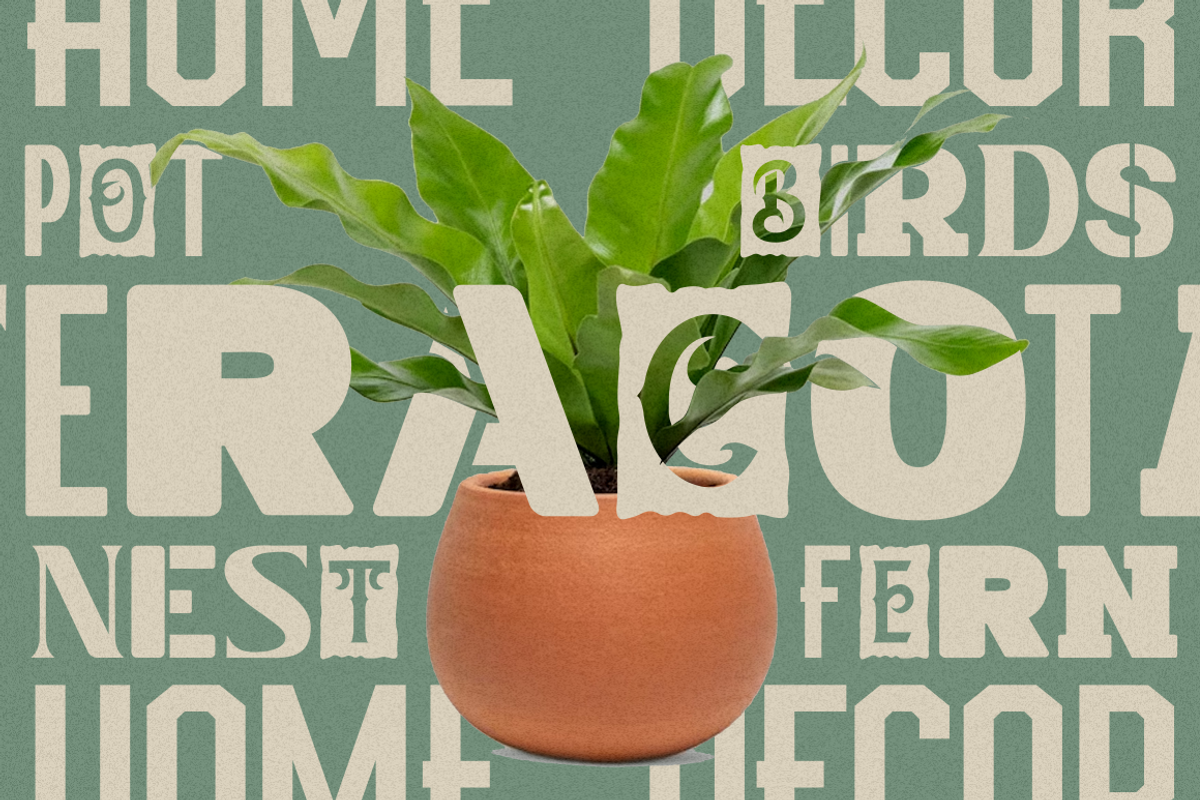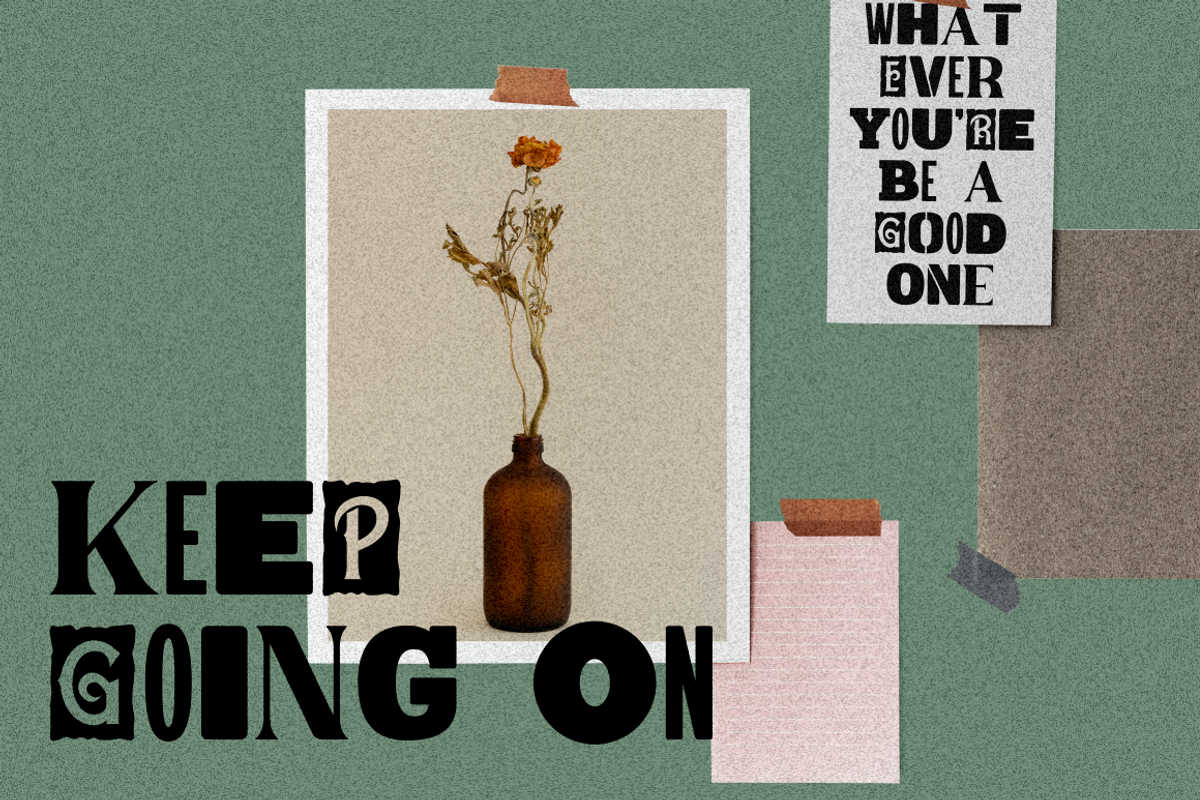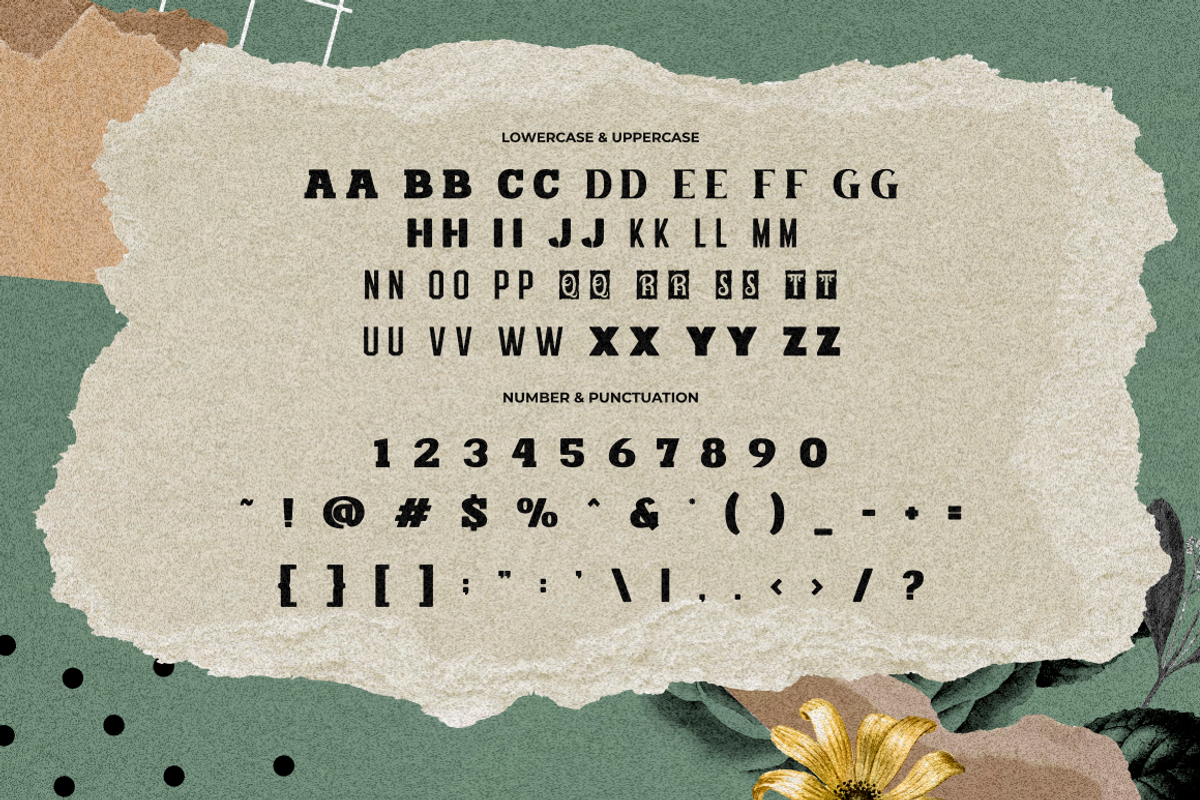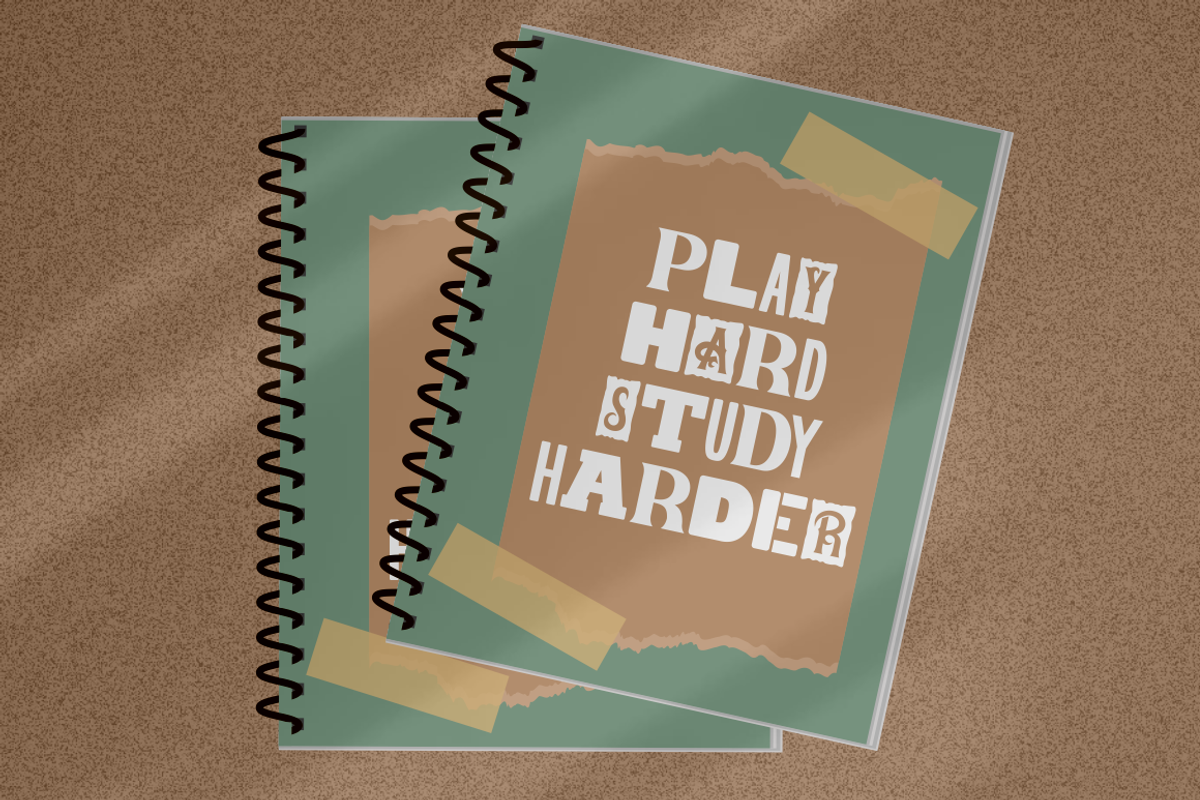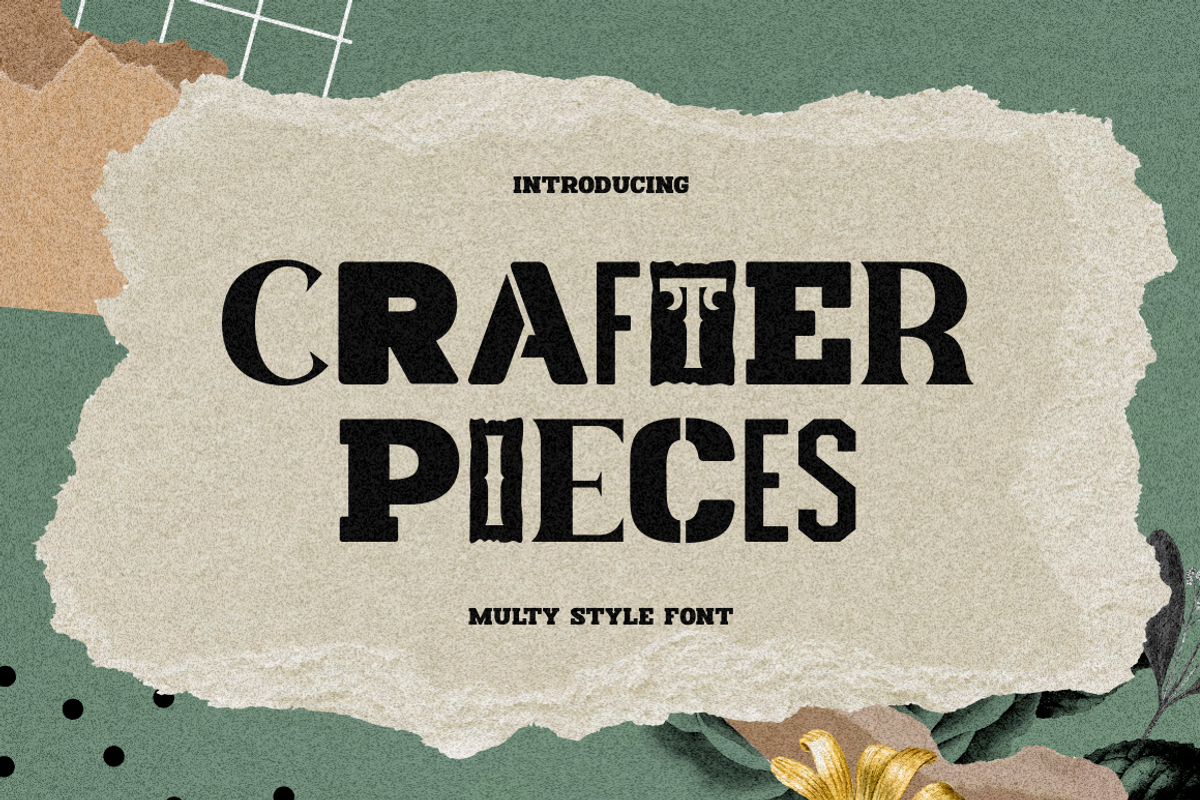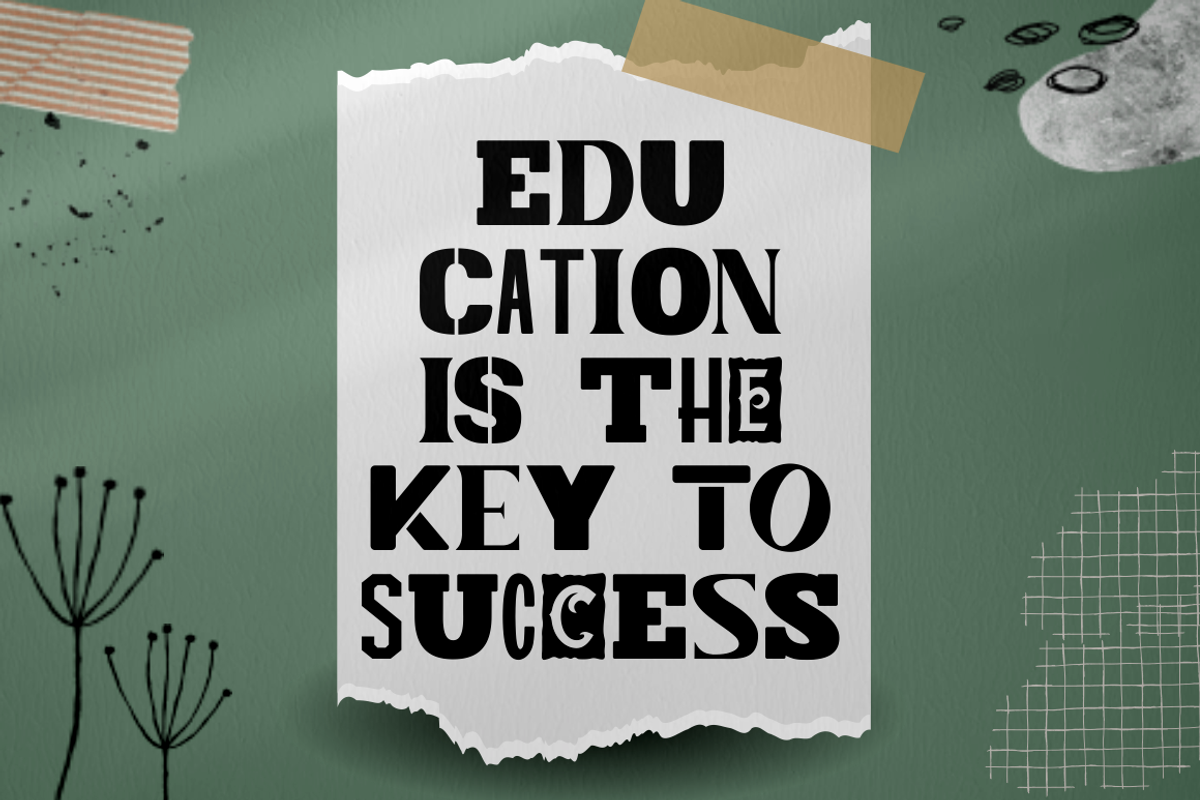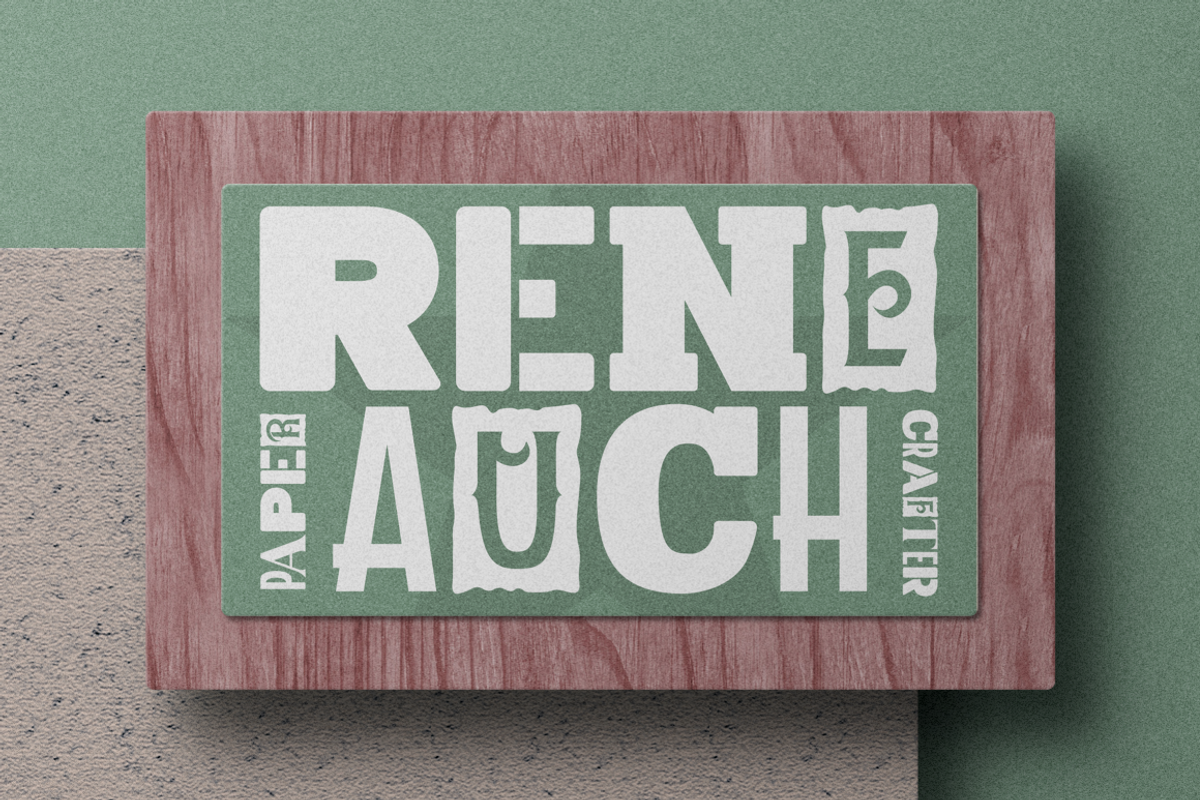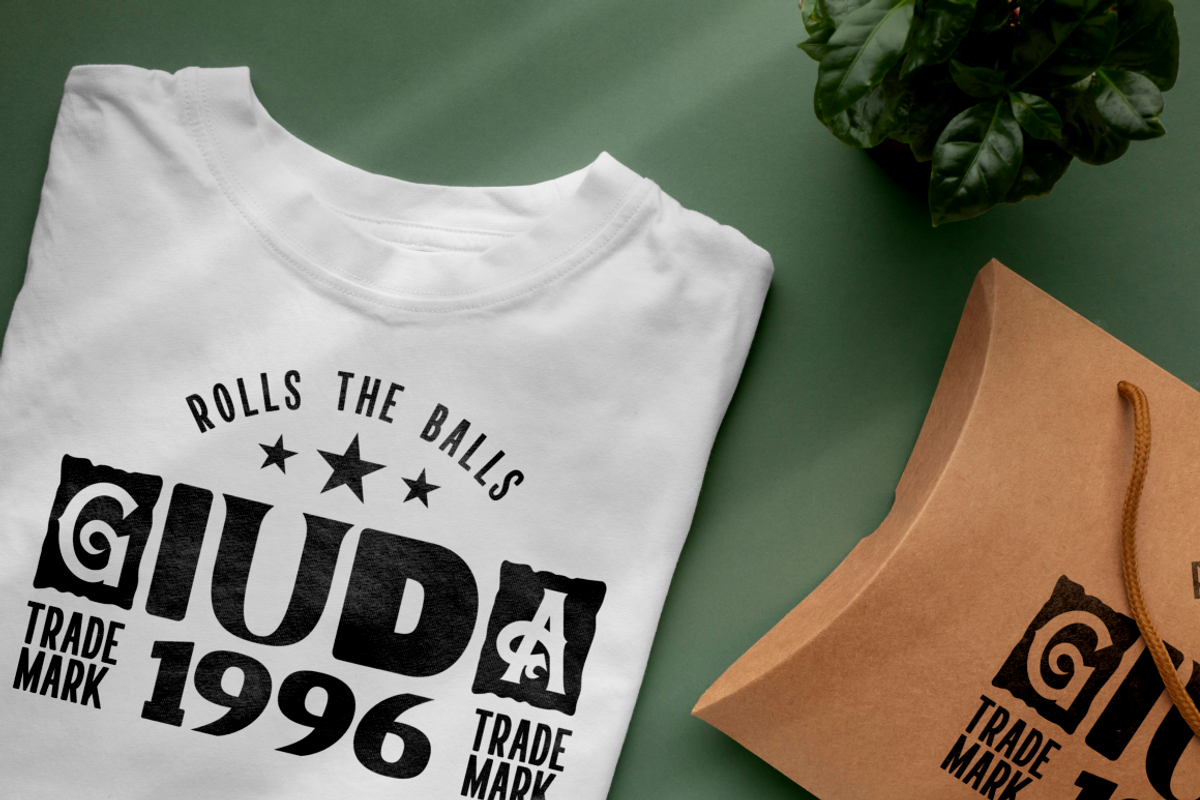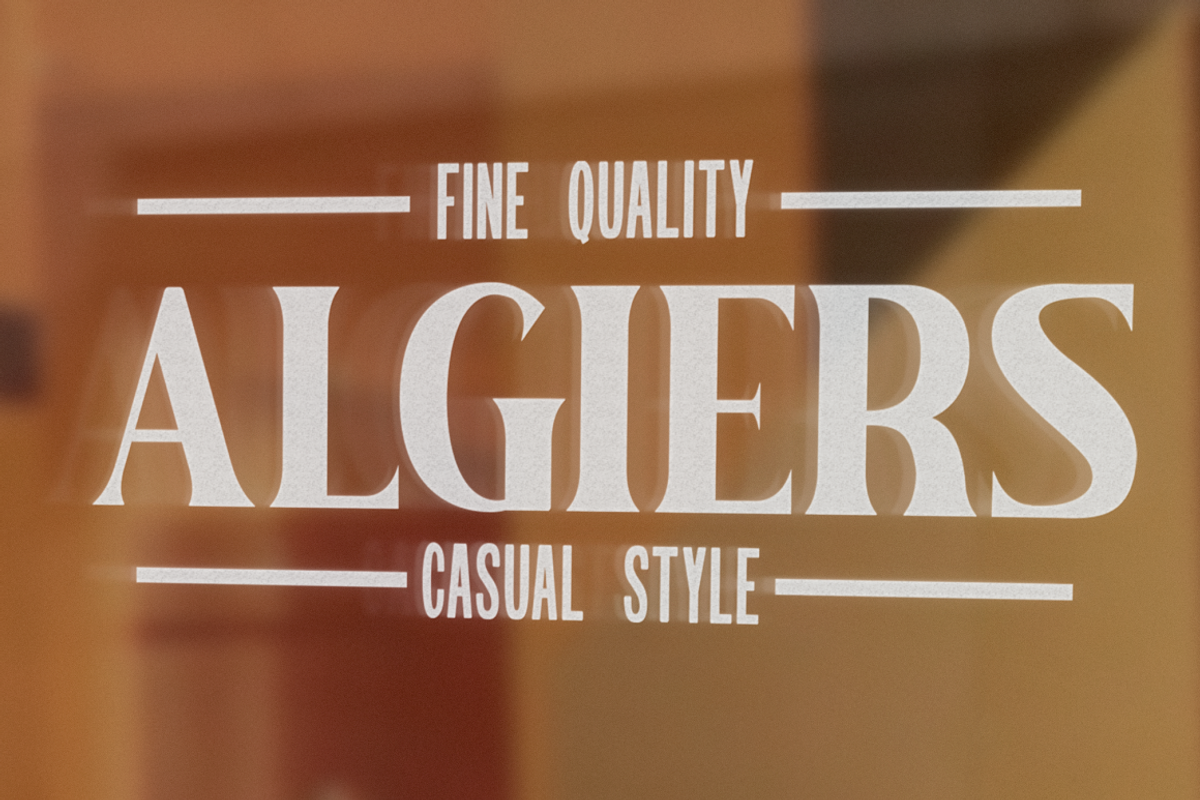
Crafter Pieces - Multy Style Font
Crafter Pieces - Multi-Style Font is a truly unique font that offers multiple styles within a single typeface. With a total of 8 different styles accessible through alternate characters, this font provides versatility and creative options for various design applications. From super bold and stencil to thin, slab, serif, sans-serif, sport, and postage stamp styles, Crafter Pieces is a font that can be applied to any design and suit any theme or style. Each style can stand on its own or be combined with others, making it a perfect choice for branding, logos, posters, quotes, books, magazines, headlines, and more.
The versatility of Crafter Pieces is truly exceptional, as it allows you to experiment with different styles within a single font. The availability of 8 distinct styles in one typeface opens up a world of possibilities for your creative projects. Whether you need a super bold look for a striking poster, a stencil style for an edgy branding design, or a thin font for an elegant quote, Crafter Pieces has it all.
With Crafter Pieces - Multi-Style Font, your design possibilities are endless. Whether you're working on a modern or vintage theme, an edgy or elegant concept, this font will be your go-to choice, offering a wide range of styles to suit every project and creative vision.